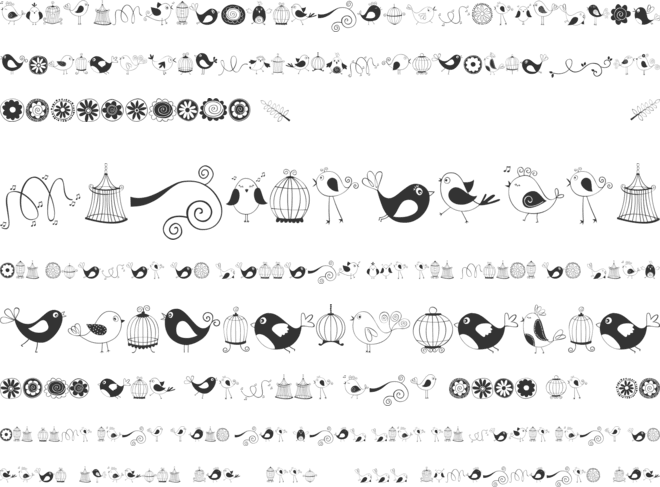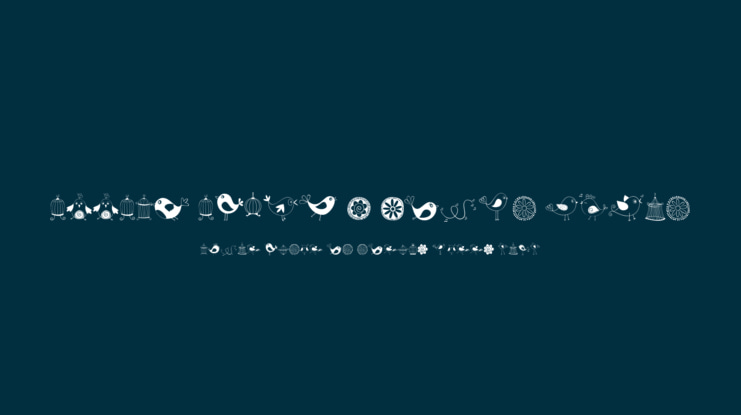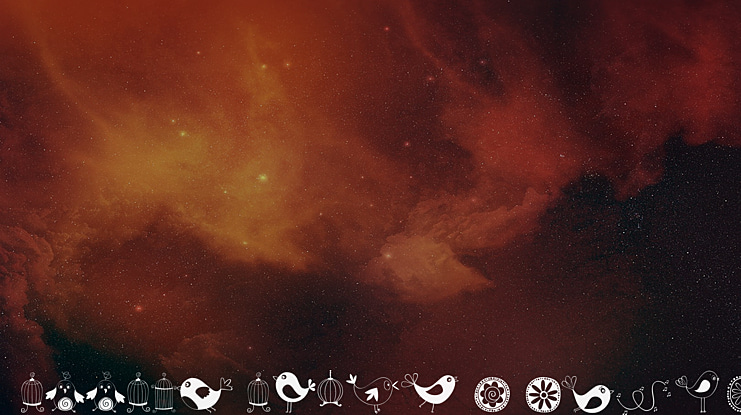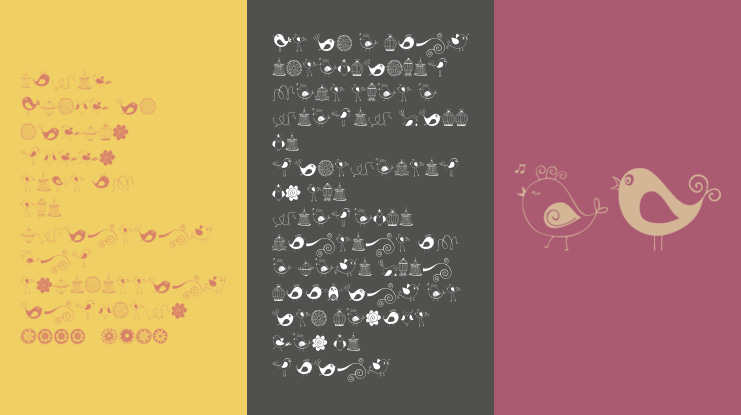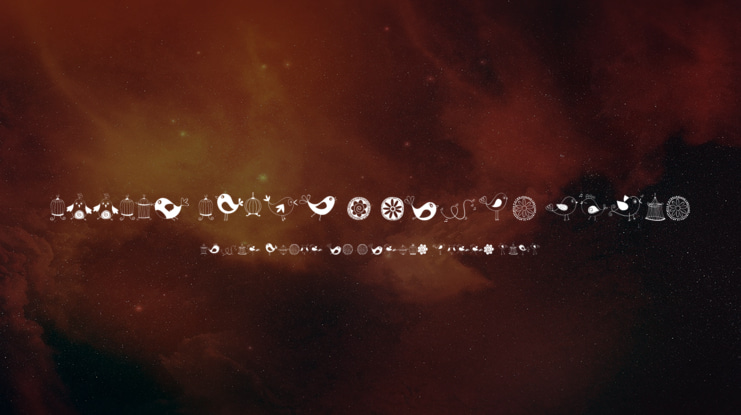
DOODLE DINGS 1 Birds Cages Font
Over 70 Hand drawn, Doodled illustrations. These cute birds and cages make nifty greeting cards, scrapbook pages, embroidery projects, over all patterns and even wall art.